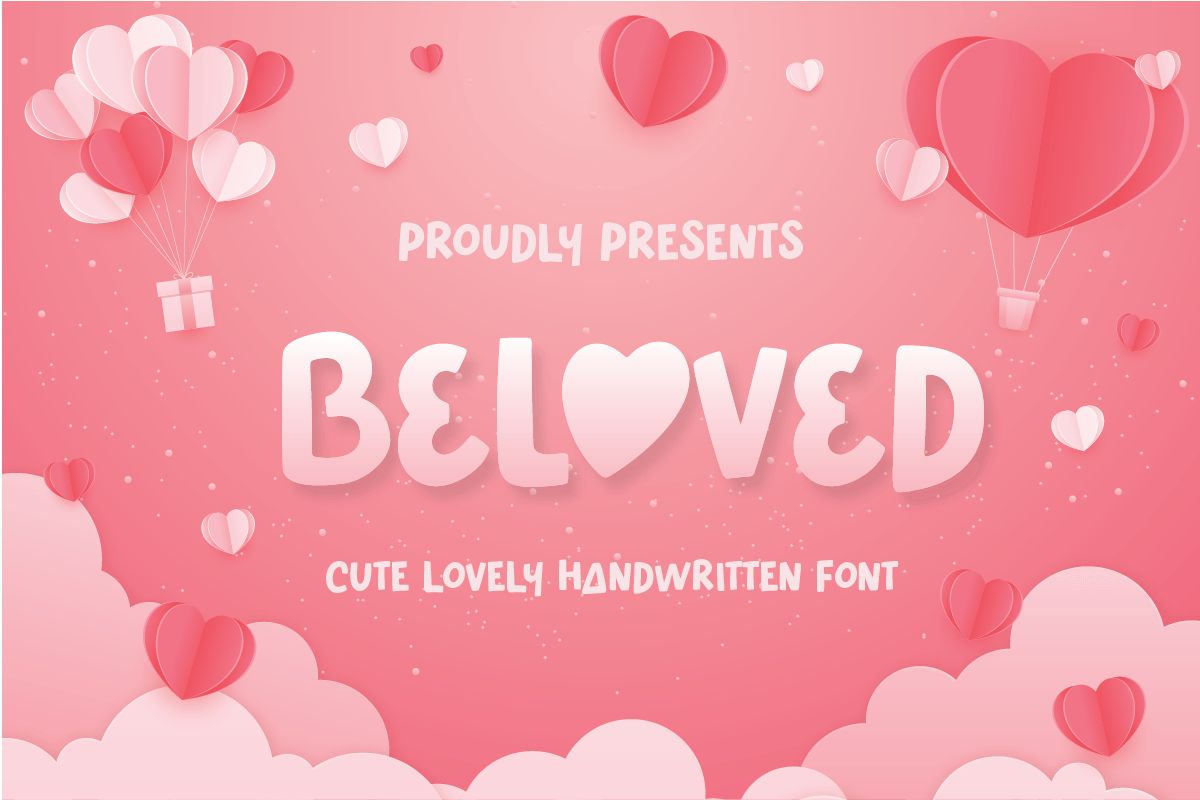
Beloved
-Cute Lovely Valentine k-pop unique font
Beloved
Beloved is A Cute Lovely Valentine k-pop unique font with unique style and so charming. This font specially crafted for your design projects such as cute logo, unique, modern for t-shirt designs, product packaging, merchandise, k-pop fans and so many more with easy to use but unique results are so cute.
Enjoy to Design any your needs with cute, lovely, and charming feel.